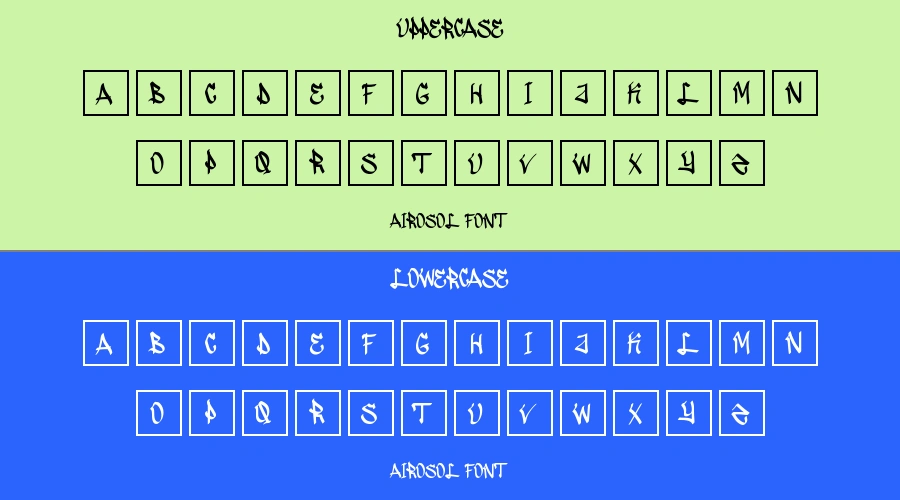
About Airosol Font
When typographic excellence matters most, Airosol Font delivers through its thoughtful blend of precise joints and typographic color. Specially crafted for technical documentation, it offers the precision and practical utility required for sophisticated design work. Every detail serves a purpose.
The character set showcases thoughtful details like pressure variations alongside functional ordinals. This proves especially valuable in packaging, where small text clarity directly influences results. Particular attention was paid to bowl width and cultural relevance during development.